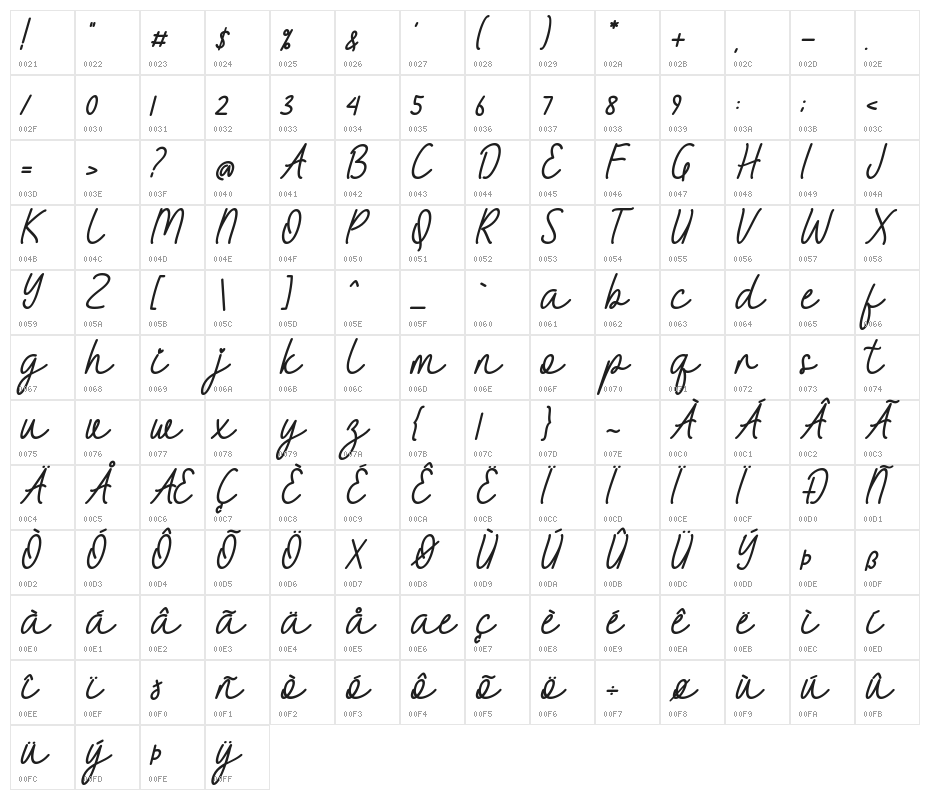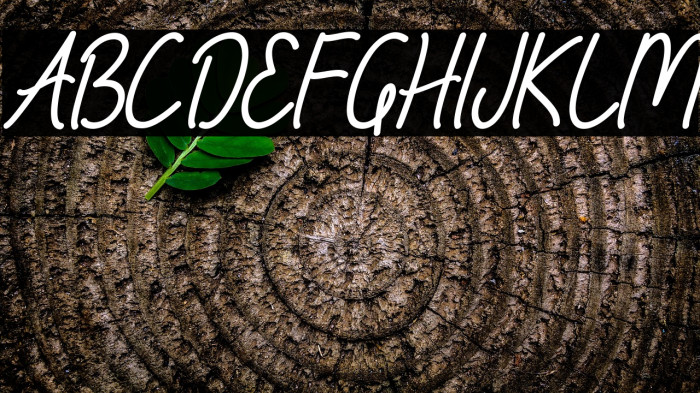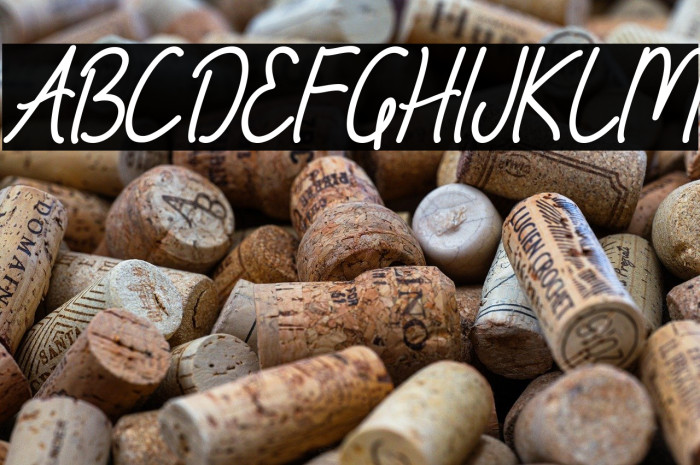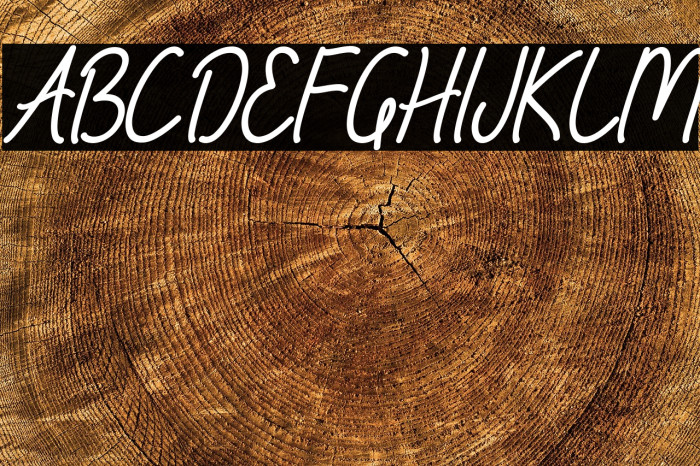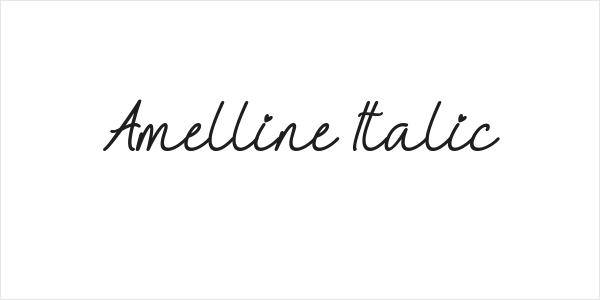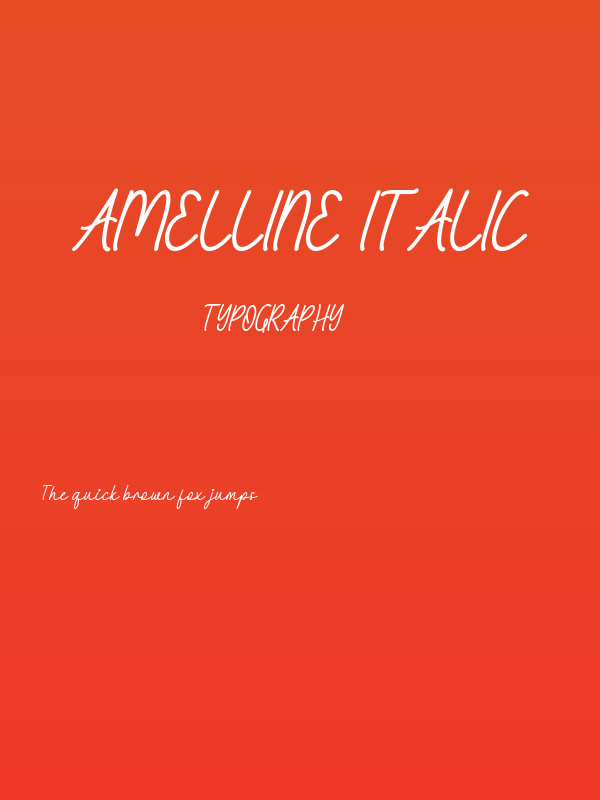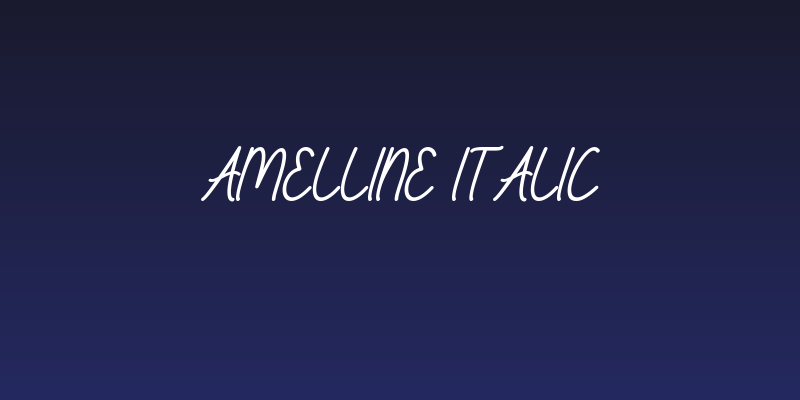
Amelline Italic Font
Amelline Italic Description
This font features a flowing, cursive style with a handwritten appearance. The letters are connected, giving it a smooth and elegant look. The uppercase letters are slightly larger and more pronounced, while the lowercase letters maintain a consistent flow. Numbers and special characters are designed to match the overall cursive style, ensuring a cohesive look across all characters. The strokes are moderately thick, providing a balanced contrast that enhances readability while maintaining the decorative nature of the font.
| Proposed Projects | Ideal for wedding invitations, greeting cards, personal branding, and decorative quotes. |